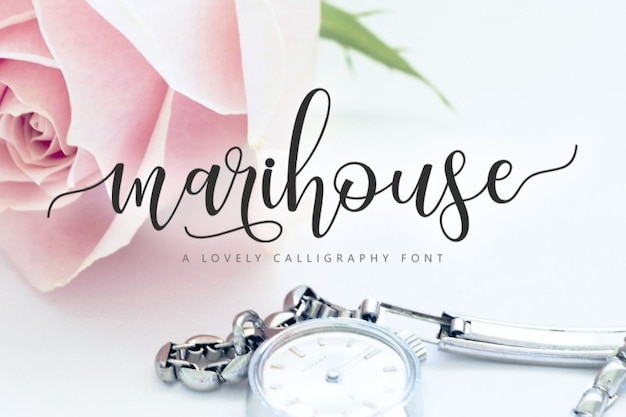
Marihouse Font
The font that flawlessly captures the essence of modern calligraphy. Its sleek lines and graceful curves bring a touch of elegance to any project. Whether it's invitations, logos, or quotes, "Marihouse" adds a lovely, contemporary flair that's hard to resist. Embrace the art of lettering with this font that effortlessly balances charm and sophistication, making your creations truly stand out.